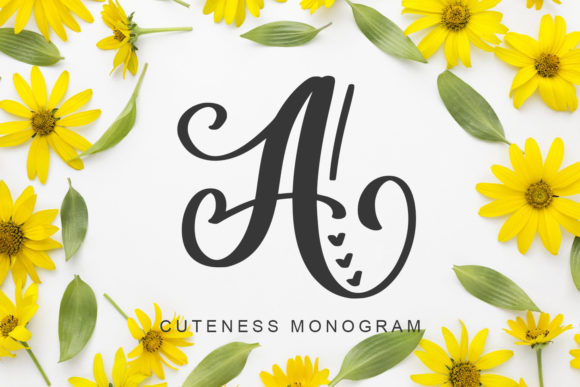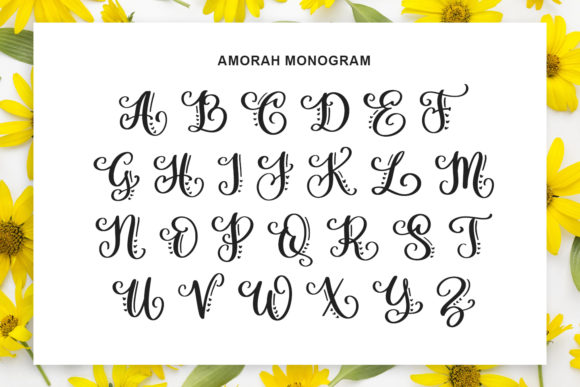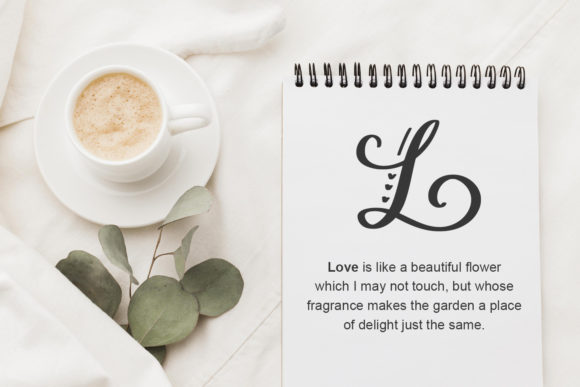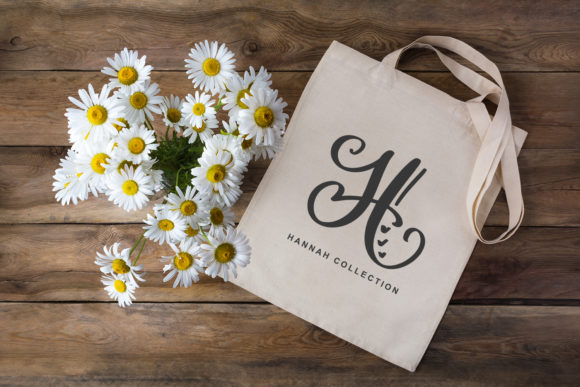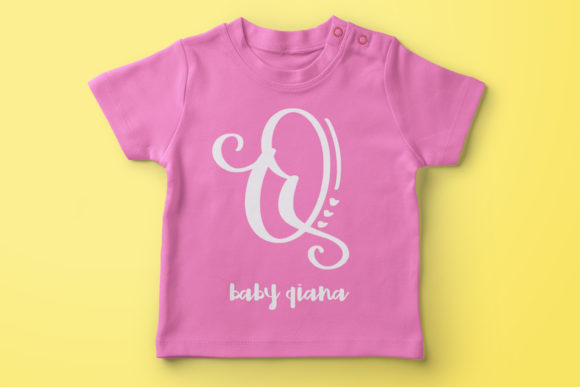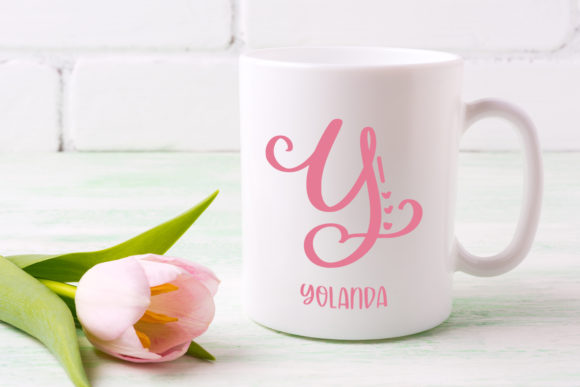
Amorah Monogram Font
About Amorah Monogram Font
Amorah Monogram sounds like a stunning and versatile handwritten font, perfect for adding a touch of elegance and charm to various design projects. With its delicate and flowing style, it offers endless creative possibilities. Here are some exciting ways to use Amorah Monogram font and bring your designs to life:
1. Monograms: As the name suggests, Amorah Monogram is ideal for creating elegant and personalized monograms for weddings, invitations, stationery, and branding.
2. Wedding Invitations: Design beautiful and sophisticated wedding invitations using Amorah Monogram font to add a touch of romance and elegance.
3. Branding and Logos: Incorporate Amorah Monogram font into branding and logos for businesses looking for a classic and refined identity.
4. Stationery and Letterheads: Use Amorah Monogram font in stationery and letterheads to add a touch of sophistication and professionalism.
5. Greeting Cards: Create elegant and heartfelt greeting cards featuring Amorah Monogram font, perfect for special occasions and heartfelt messages.
6. Personalized Gifts: Use Amorah Monogram font to personalize gifts like mugs, jewelry, or custom prints for a thoughtful and luxurious touch.
7. Book Covers: Apply Amorah Monogram font in book covers for a classic and timeless look that captures the essence of the story.
8. Branding and Packaging: Incorporate Amorah Monogram font into product packaging to add a sense of luxury and refinement.
9. Art Prints: Design beautiful art prints with Amorah Monogram font for home decor or as thoughtful gifts.
10. Social Media Graphics: Use Amorah Monogram font in social media graphics for a sophisticated and polished look.
11. Labels and Stickers: Customize labels and stickers with Amorah Monogram font to add an elegant touch to products or gifts.
12. Event Invitations: Design chic and stylish event invitations using Amorah Monogram font for a touch of class and sophistication.
13. Wedding Decorations: Use Amorah Monogram font in wedding decorations like table numbers, signage, or place cards for a cohesive and elegant theme.
14. Embroidery Designs: Create intricate and beautiful embroidery designs using Amorah Monogram font for a personalized and unique touch.
15. Luxury Branding: Apply Amorah Monogram font in branding for luxury brands, capturing the essence of high-end elegance.
16. Fine Art Prints: Design fine art prints with Amorah Monogram font, adding a touch of sophistication and timeless beauty to the artwork.
17. Certificate Design: Use Amorah Monogram font in certificate designs to enhance their elegance and importance.
18. Calligraphy Projects: Incorporate Amorah Monogram font in calligraphy projects to create visually striking and captivating pieces.
19. Elegant Signage: Use Amorah Monogram font in elegant signage for events, boutiques, or upscale venues.
20. Magazine Covers: Apply Amorah Monogram font on magazine covers for a classic and eye-catching title design.
In conclusion, Amorah Monogram is a delicate, elegant, and flowing handwritten font that offers a wide range of creative applications. Its well-balanced characters and timeless style make it suitable for various design projects, from monograms and wedding invitations to branding and packaging. Whether you’re aiming for sophistication, romance, or a touch of luxury, Amorah Monogram font is sure to elevate your designs and make them come alive with elegance and charm.